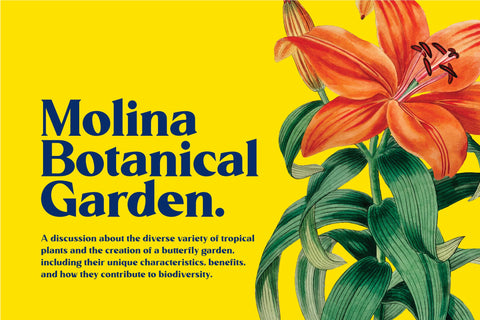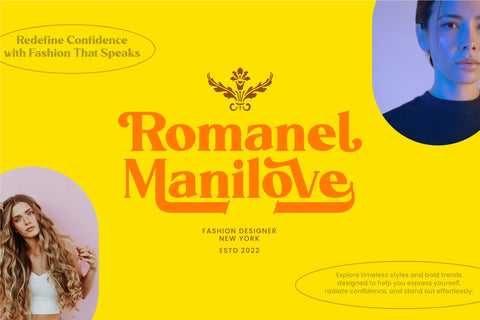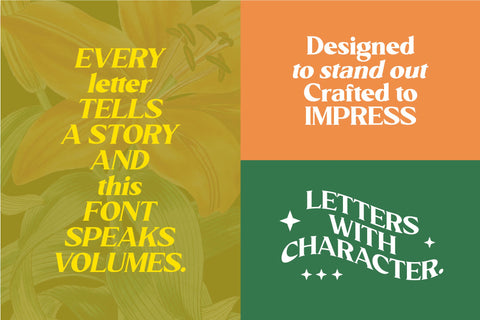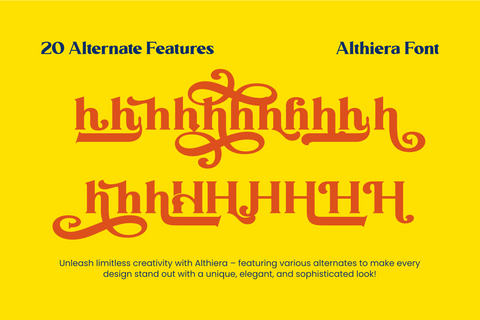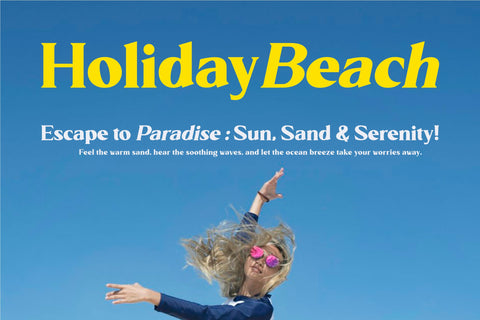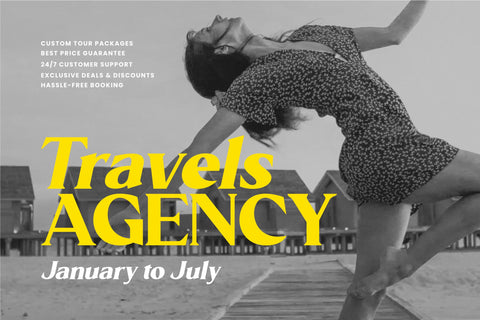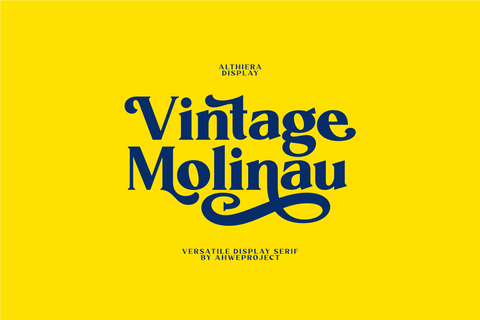
Althiera
Althiera is a captivating serif display font designed to make a statement. Perfectly crafted with strong, bold strokes and elegant curves, this font is ideal for anyone looking to create eye-catching headlines, branding projects, logos, and editorial designs.
With its clean lines and distinctive style, Althiera offers multiple variations, including Regular, Slant, and Extrude, giving you the flexibility to experiment and elevate your designs. Whether you’re aiming for a vintage look, modern elegance, or creative flair, Althiera is your go-to choice for maximum impact.
Why Choose Althiera?
– Stylish Versatility: Suited for both classic and modern aesthetics.
– Perfect for Display Use: Ideal for headlines, posters, packaging, and more.
– Layered Extrude Option: Create depth and dimensional effects effortlessly.
- Uppercase & lowercase
- Numbers and punctuation
- Multilingual